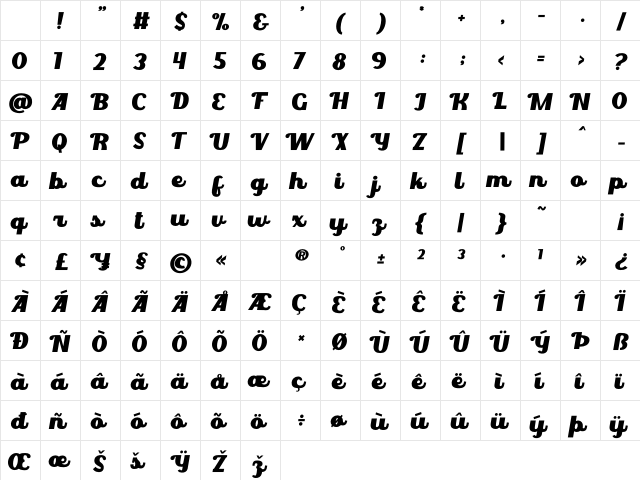
Juan Burgos is a composed and adaptable typeface that performs quietly and consistently across a wide range of design contexts. Its bold stroke weight gives it real presence on the page.